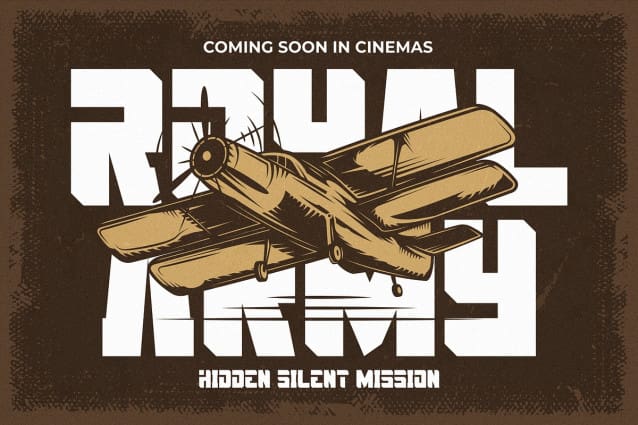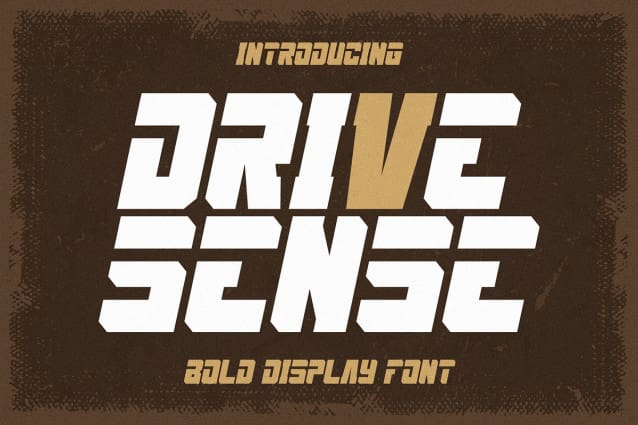
Drive Sense Font
Drive Sense, the bold display font that seamlessly blends modern aesthetics with a nostalgic stencil touch. More than just a font, it is a journey through time, where each character revs up the style quotient, evoking the spirit of classic design in a contemporary context.
🚗 Retro Revival: Take a trip down memory lane with Drive Sense‘s retro charm. Each letter carries the essence of vintage stencils, adding a touch of classic Americana to your designs. It’s not just a font; it’s a visual time machine.
🎨 Bold Statement: Make a statement that echoes through the decades. Drive Sense‘s bold and assertive design commands attention, making it the perfect choice for headlines, posters, and branding projects that demand a bold display of character.
🛣️ On the Road Again: Whether you’re designing for automotive themes, travel graphics, or any project that craves a touch of adventure, Drive Sense accelerates your creativity on the design highway, promising a journey infused with style.
🕰️ Timeless Elegance: Drive Sense doesn’t just capture a moment in time; it encapsulates timeless elegance. Its versatility ensures that it seamlessly integrates into a myriad of design projects, bringing a dash of retro sophistication to your creative endeavors.
🎉 Versatile Creativity: From vintage-inspired signage to modern-day branding, Drive Sense adapts effortlessly to your creative vision. Its unique blend of boldness and retro charm opens up a world of design possibilities.
🌟 Unleash Nostalgia: Dive into the nostalgia pool and emerge with designs that resonate with the past while embracing the present. Drive Sense is not just a font; it’s a design companion, ready to steer your projects into the realms of timeless style.
Elevate your designs with Drive Sense – where retro meets contemporary, and every character is a testament to the enduring allure of classic design. Let your creativity take the wheel on a journey through the ages!